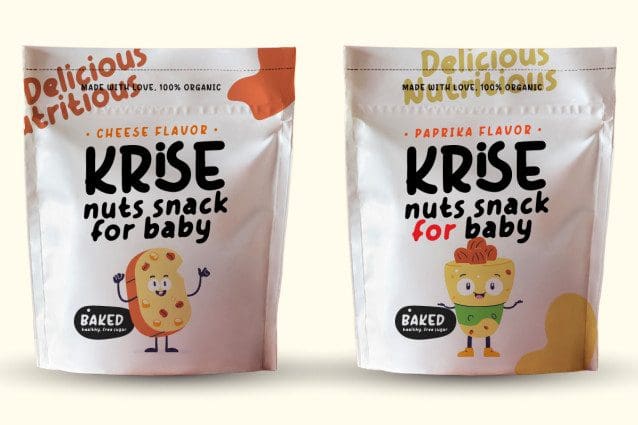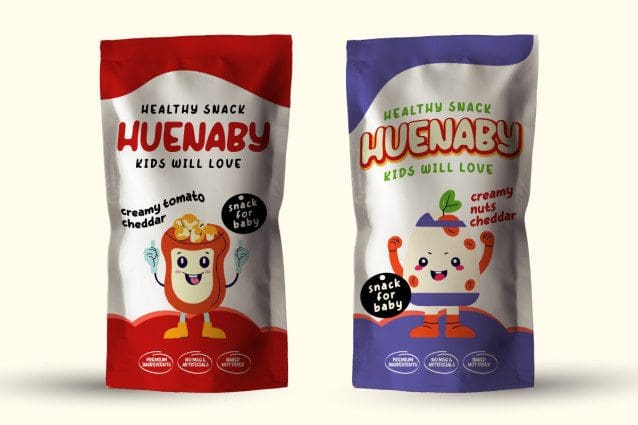
Babish Face Font
Babish Face Font, a display font that combines a fun touch and an interesting aesthetic. Designed to liven up the atmosphere with cute and friendly characters, Babish Face is the perfect choice for a variety of creative projects that require captivating visual appeal.